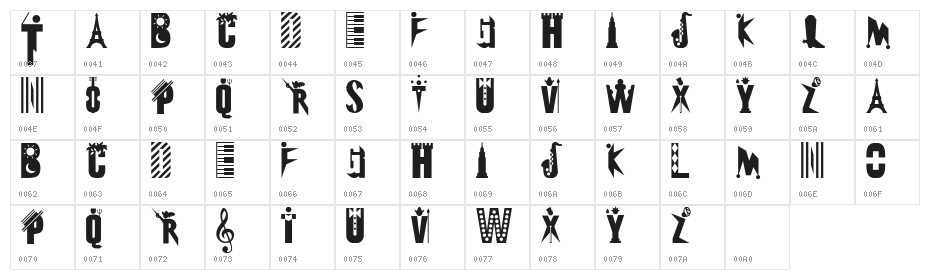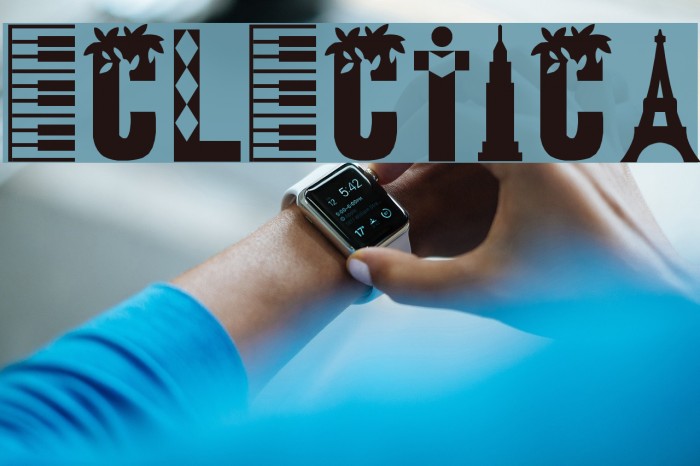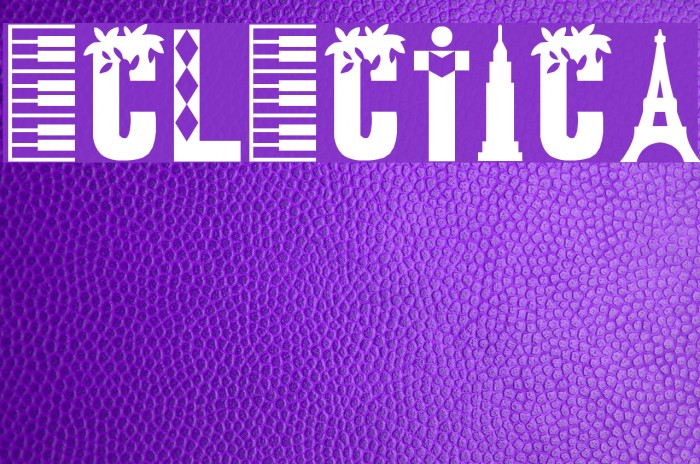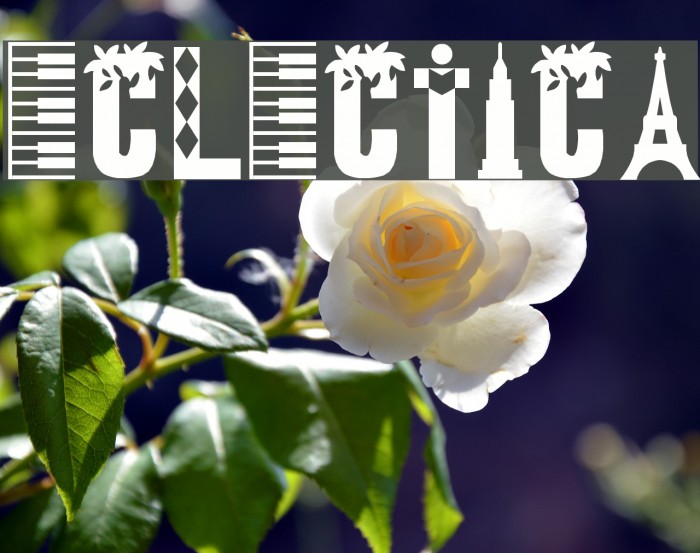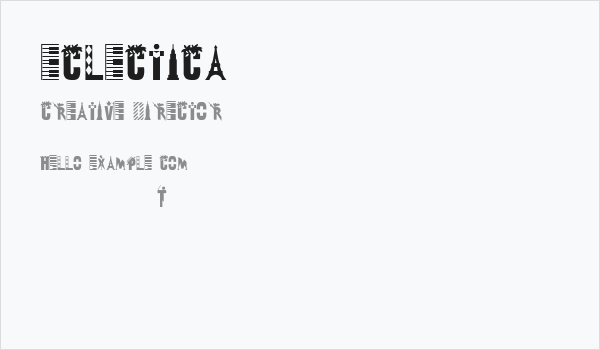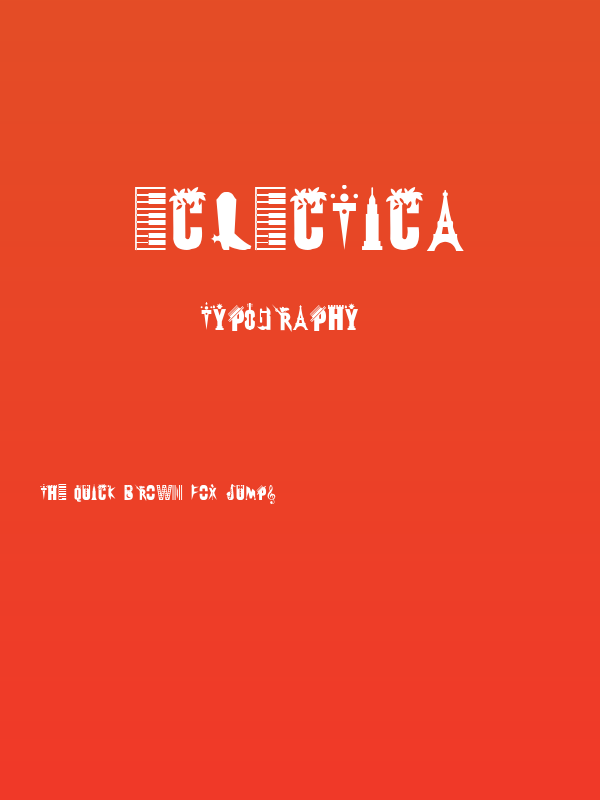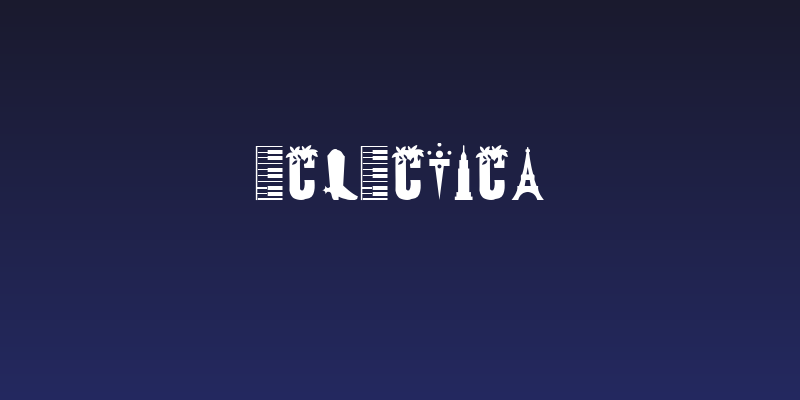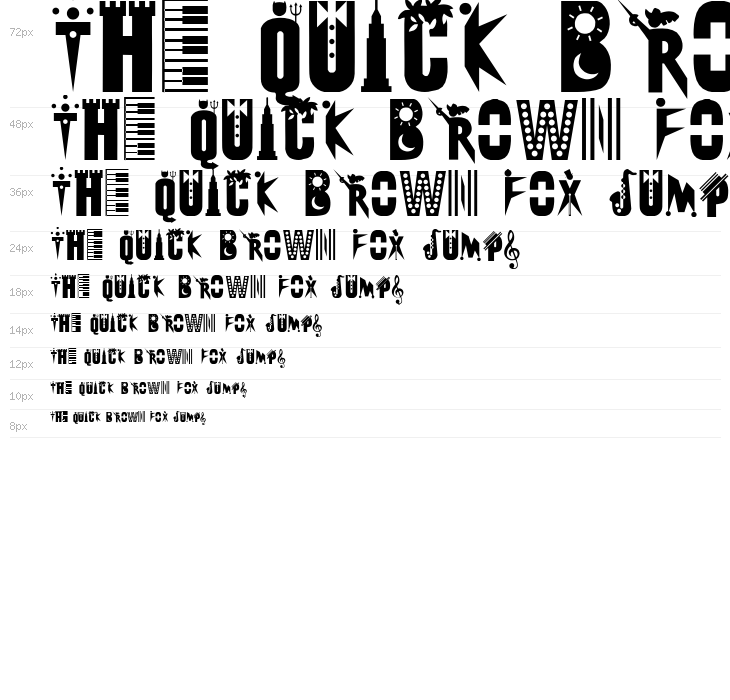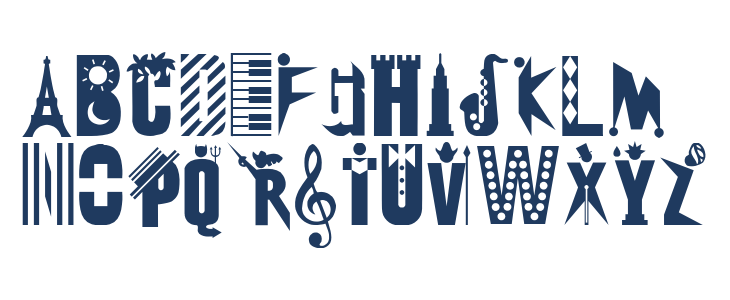
Eclectica Font
Eclectica Description
This font is a highly decorative and eclectic typeface that incorporates various whimsical and artistic elements into each character. Each letter is uniquely designed with intricate details, such as musical notes, instruments, and abstract shapes, creating a playful and artistic appearance. The font is bold and visually striking, making it ideal for creative projects that require a distinctive and eye-catching style. The characters are crafted with a mix of solid and patterned fills, adding to the dynamic and varied look of the font. This typeface is perfect for projects that aim to convey creativity, fun, and artistic flair.
| Proposed Projects | Ideal for music-themed posters, artistic event invitations, creative branding, and unique logo designs. |